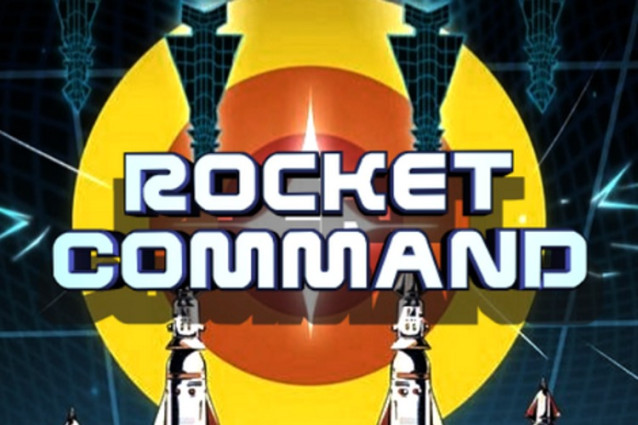
Rocket Command Font a strong, confident and powerful typeface designed to suit sports logos, club branding, apparel applications, labels and more.
| Designer Name: | Iconian Fonts |
| Classification: | 3D Fonts, Decorative Fonts, Display Fonts, Sans Serif Fonts, Stencil Fonts, Techno / Futuristic Fonts |